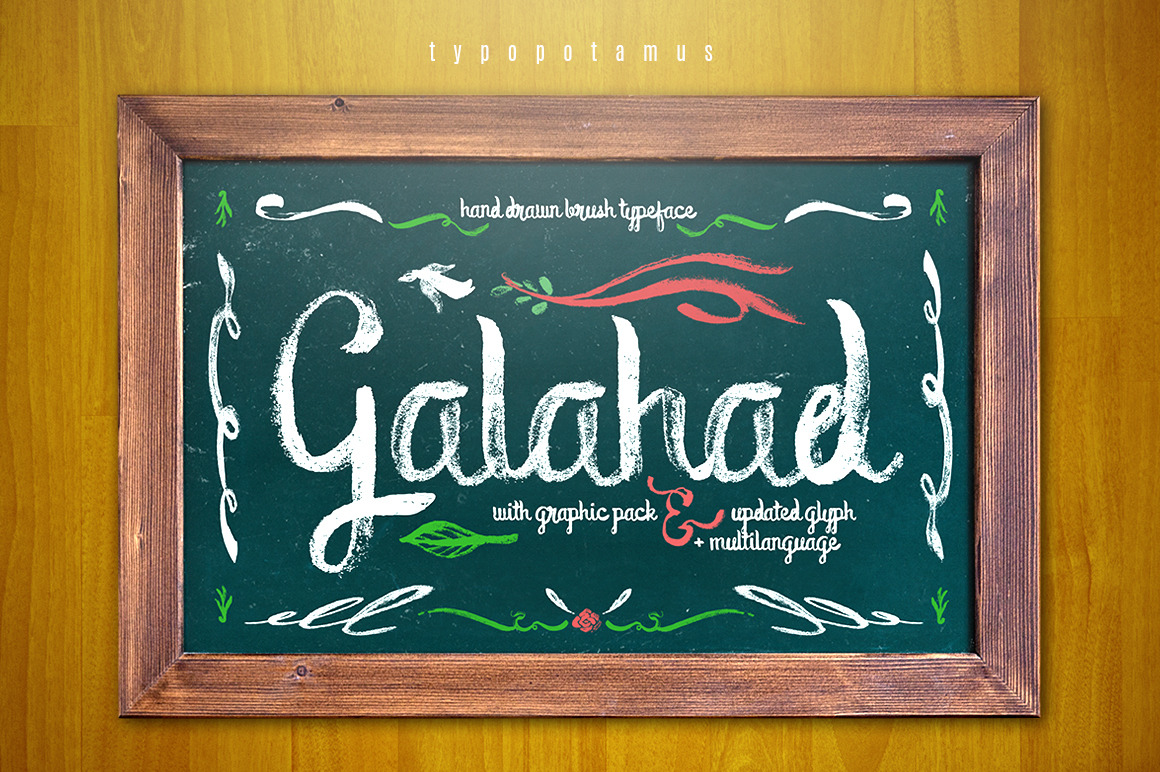
Galahad Typeface
- Multi languages glyph
- fixed open contour problem on some multi language glyph
Galahad is a 100% hand drawn typeface using ink and brush. Brought to give you a professional looks for you decorative designs.
The typeface is great for :
- invitations
- logos
- quotes
- headings
- t-shirt
- letterhead
- signage
- labels
- news
- posters
- chalkboard style restaurant menu